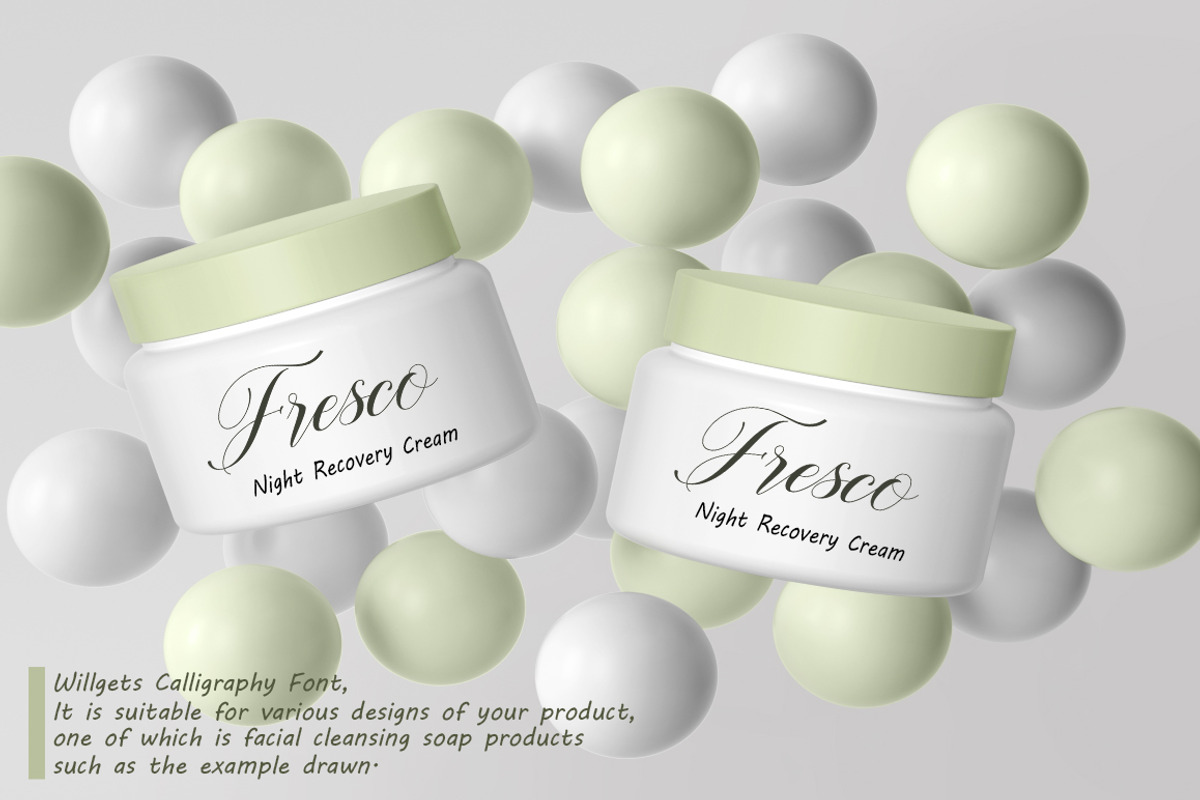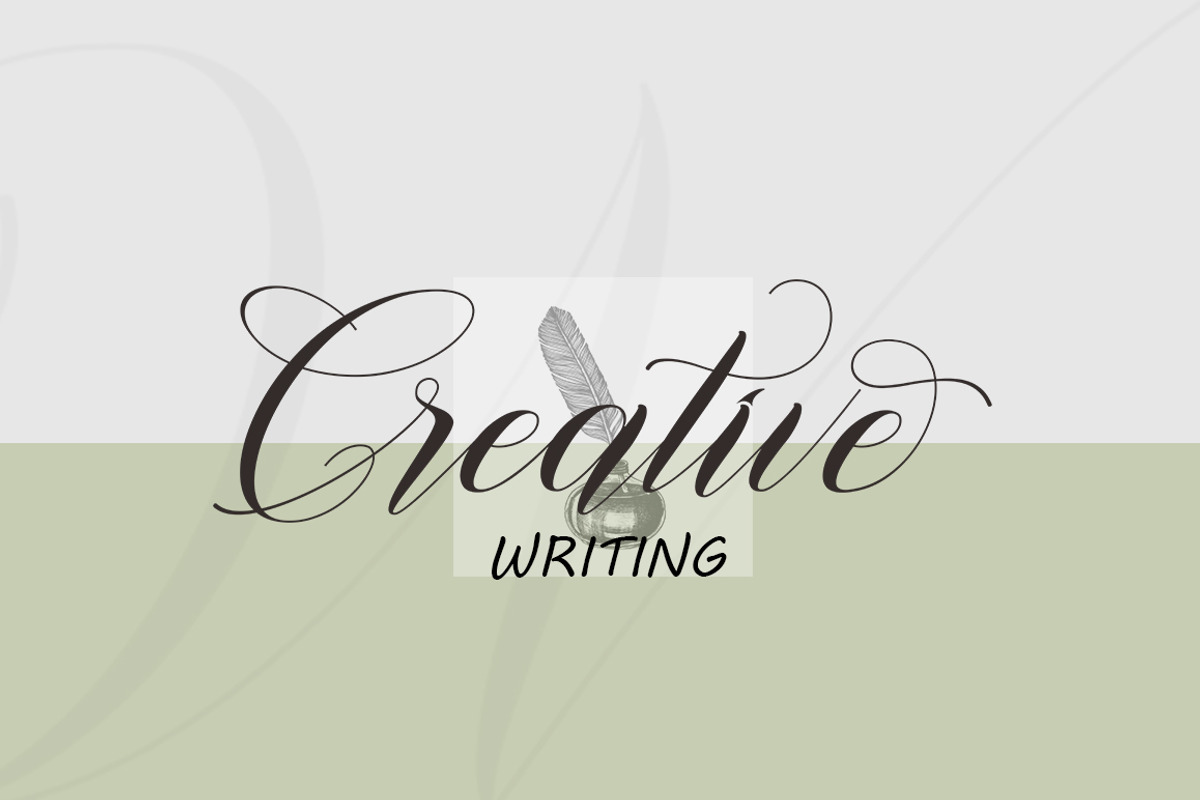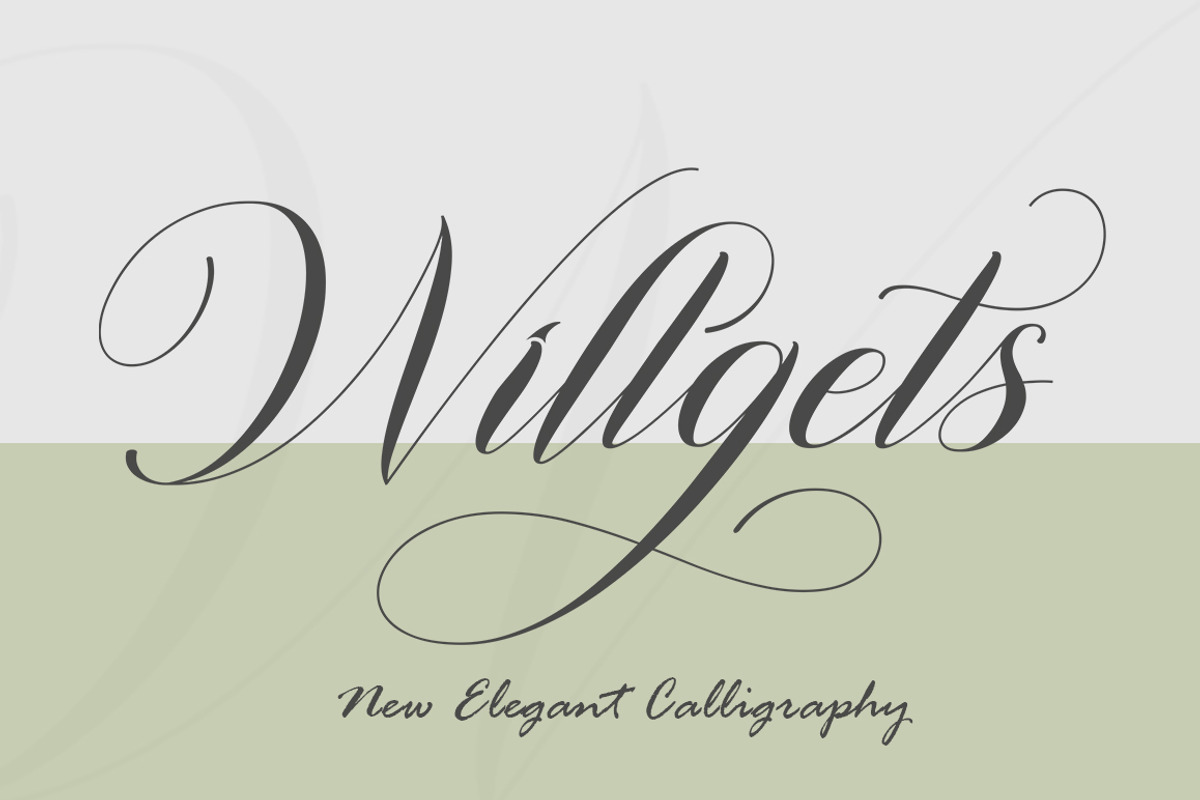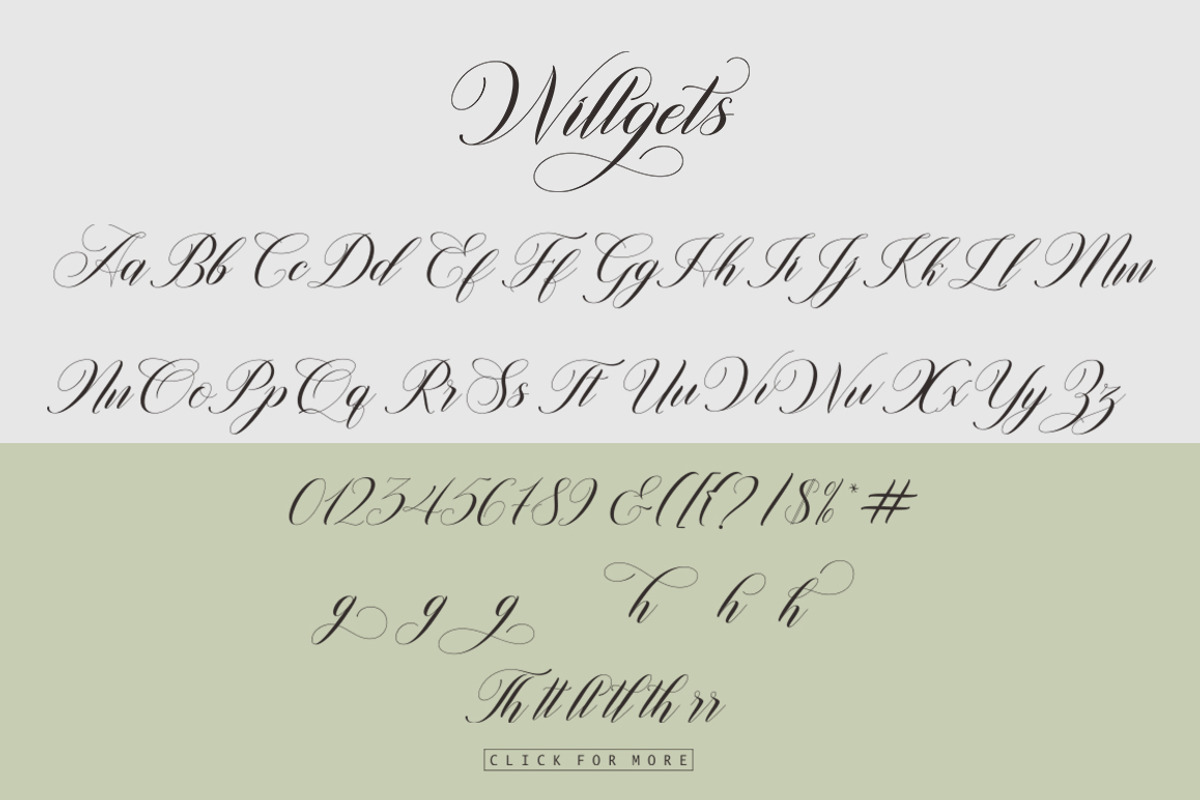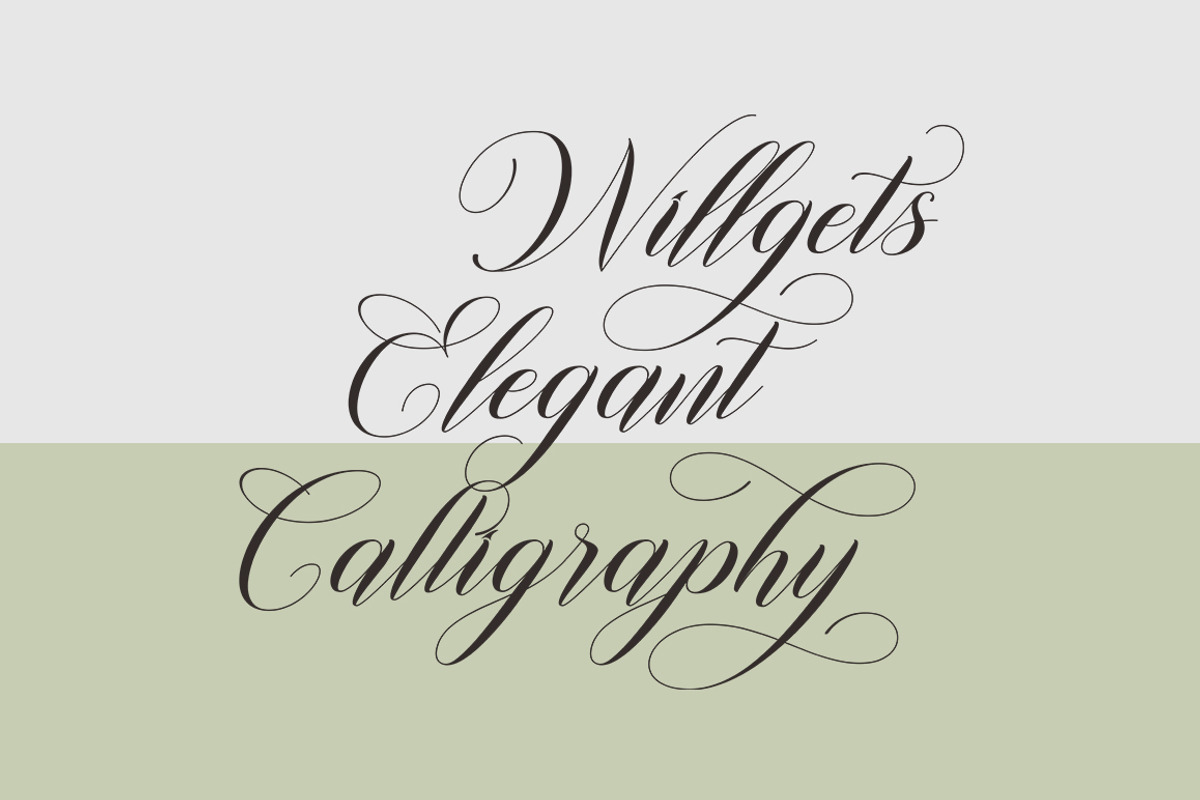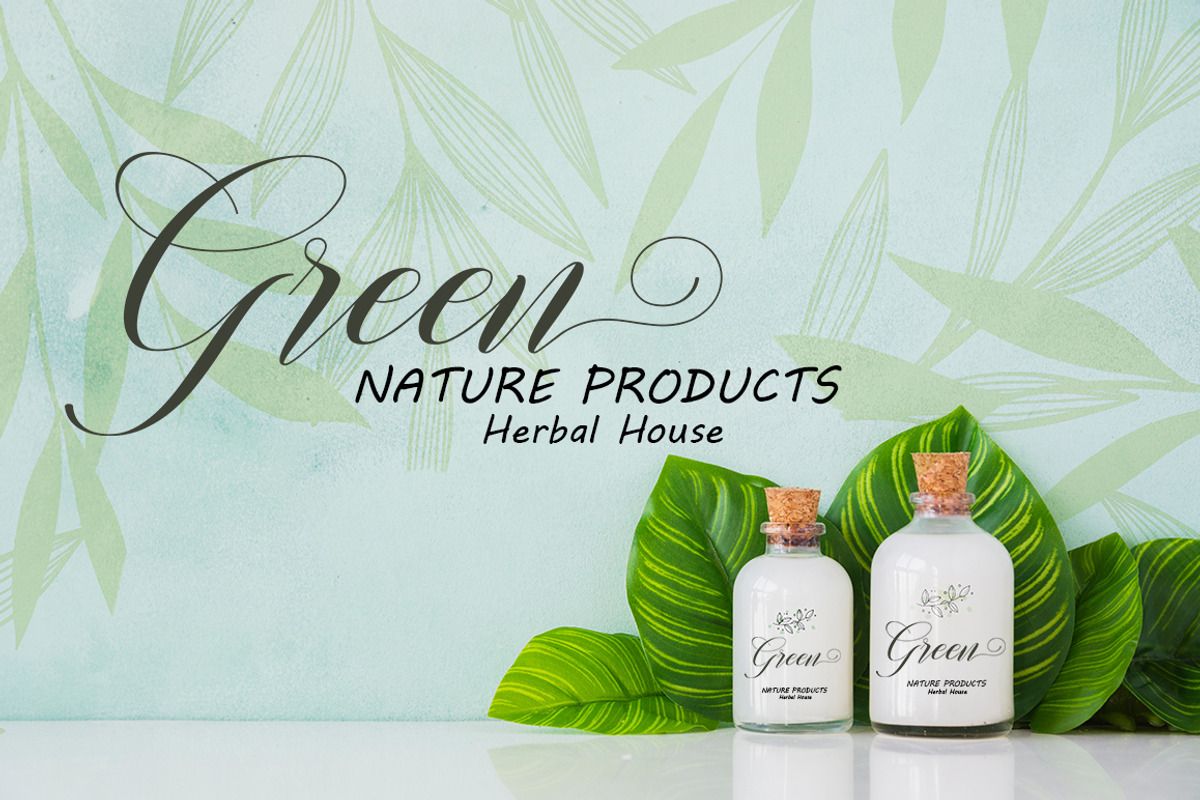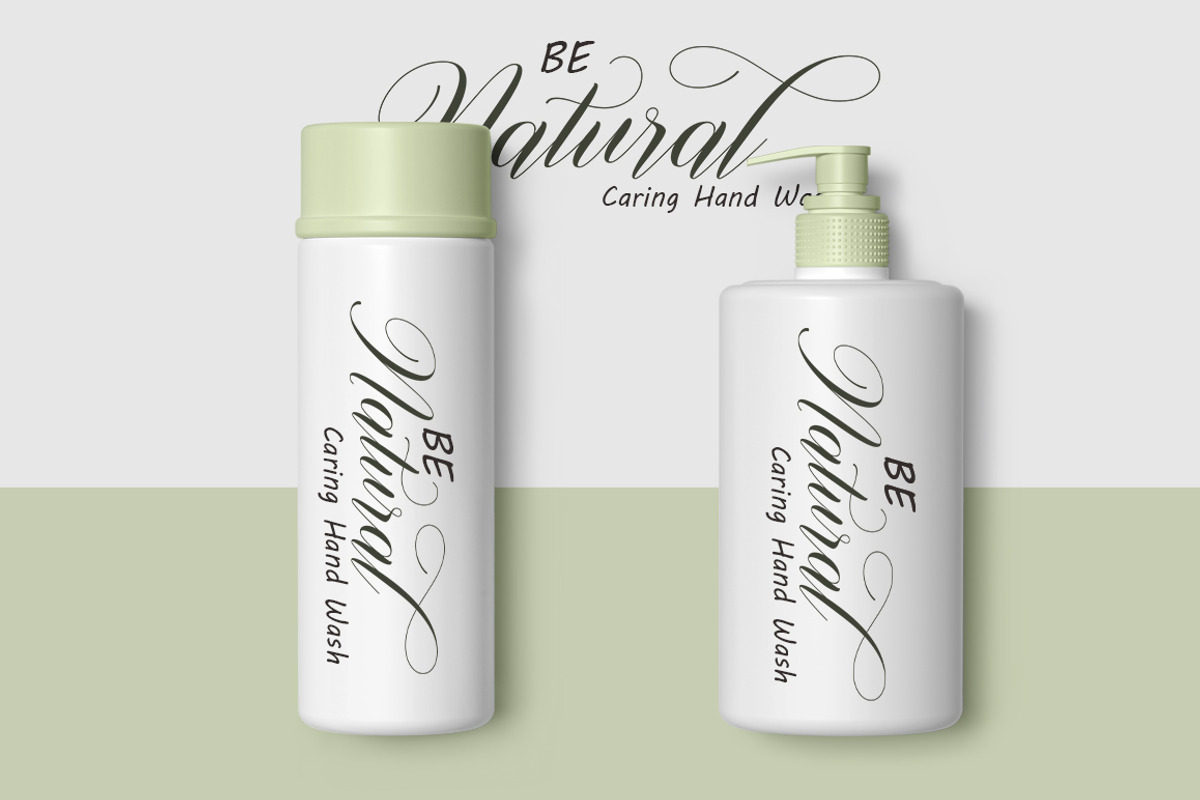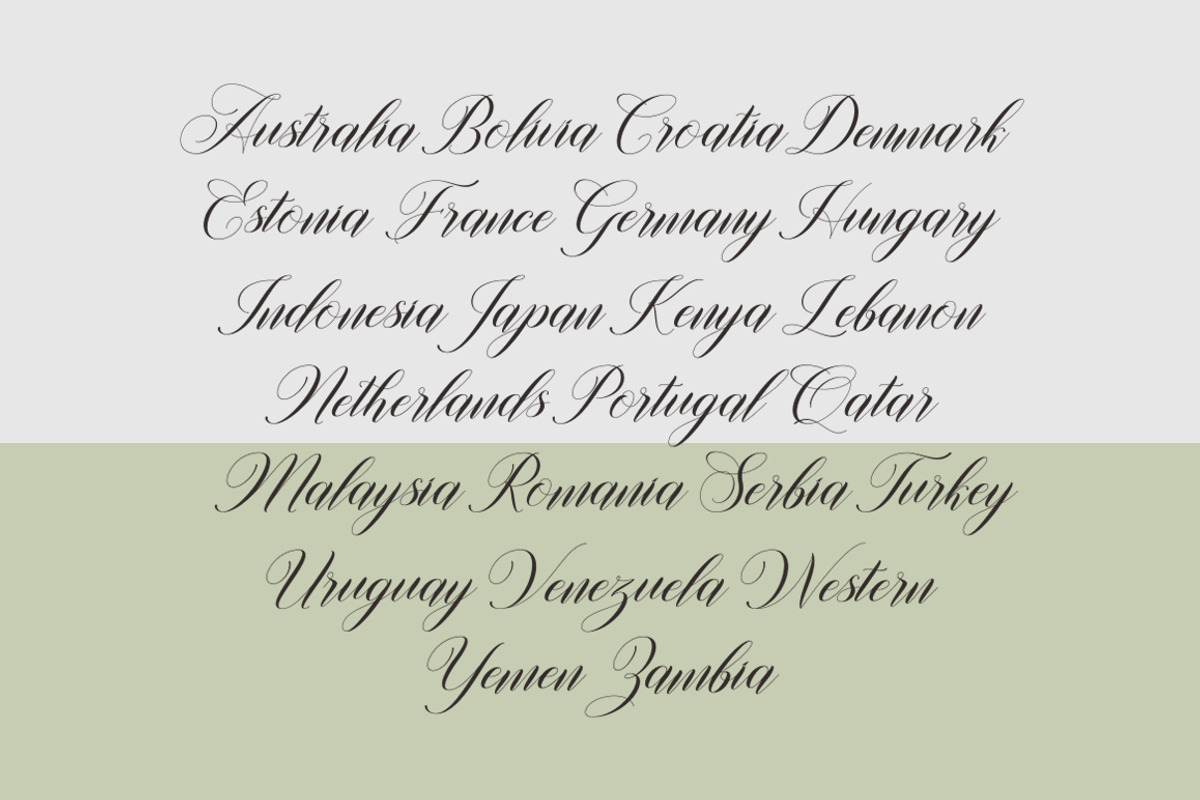
Willgets
Introducing Willgets calligraphy font.
Willgets is a classic calligraphy font. This is a classic thin font with an italic style. Here you will get a beautiful classic font. This font is available in several modern swirls that can make your work look elegant, sweet and perfect.
With this style, this font will be suitable for logos, branding projects, design of household appliances, product packaging, mugs, quotes, posters, shopping bags, logos, t-shirts, book covers, business cards, invitation cards, greeting cards, and all your other beautiful projects.
Willgets many alternative characters, including various language support. You can use this font for your work very easily. Because there are many features in it. Contains a complete set of upper and lowercase letters, punctuation, numbers and multilingual support. This font also includes several ligatures and alternative styles Set Stylistic For those of you who have software that is able to work OpenType (Corel Draw / Photoshop / Illustrator / InDesign).